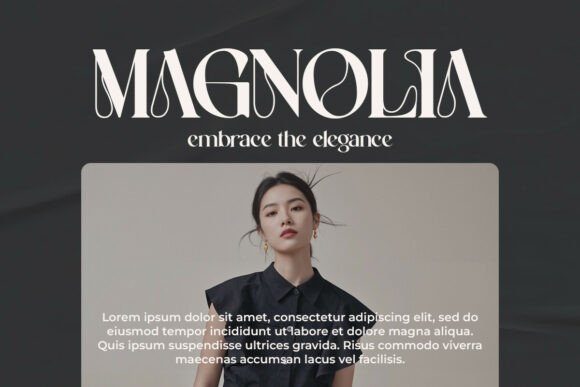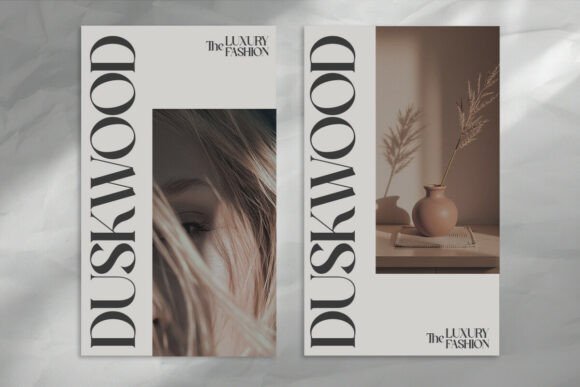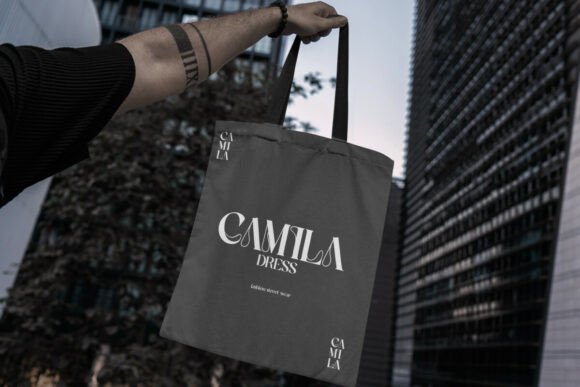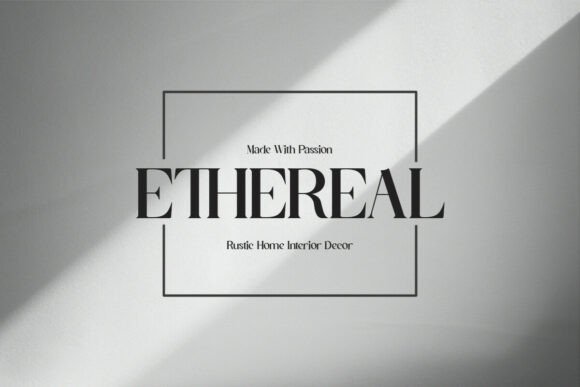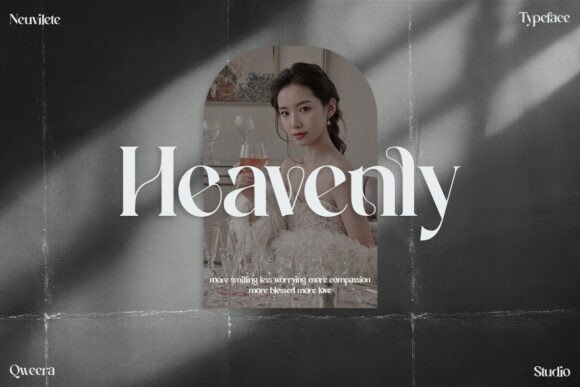
Introduction to Neuvilete Font
Neuvilete is a refined serif typeface that embodies sophistication, elegance, and timeless luxury.
With its graceful curves, balanced proportions, and modern detailing, this font is designed to elevate creative projects with an exclusive high-end aesthetic Featuring stylish alternates and ligatures, Neuvilete offers versatile customization, allowing designers to craft unique and memorable typography.
Key Features of Neuvilete Font
Why Choose Neuvilete Font?
Neuvilete Font offers exceptional quality and versatility, making it a valuable addition to your design toolkit. Whether you’re creating for personal projects or commercial use, Neuvilete Font delivers professional results.